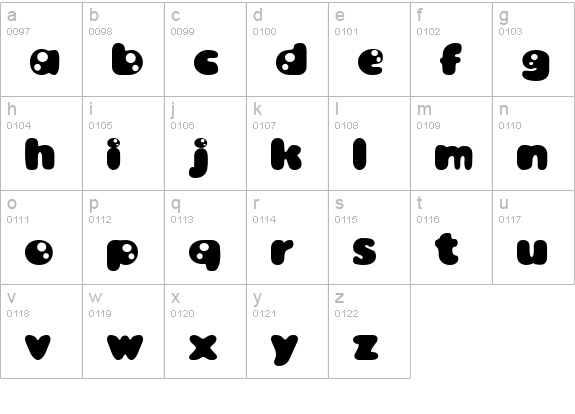
Bambina Font Details
Bambina font is a whimsical and charming typeface that is sure to add a touch of playfulness to any design project. With its rounded edges and flowing strokes, Bambina exudes a sense of elegance and femininity. This versatile font is perfect for a wide range of uses, from branding and logos to invitations and social media graphics. The best part? Bambina font is completely free to download at FontsMarket.com! You can easily access this delightful typeface and incorporate it into your creative projects without any cost. Don't miss out on the opportunity to add a touch of sweetness and sophistication to your designs with Bambina font. Download it today and let your creativity shine!